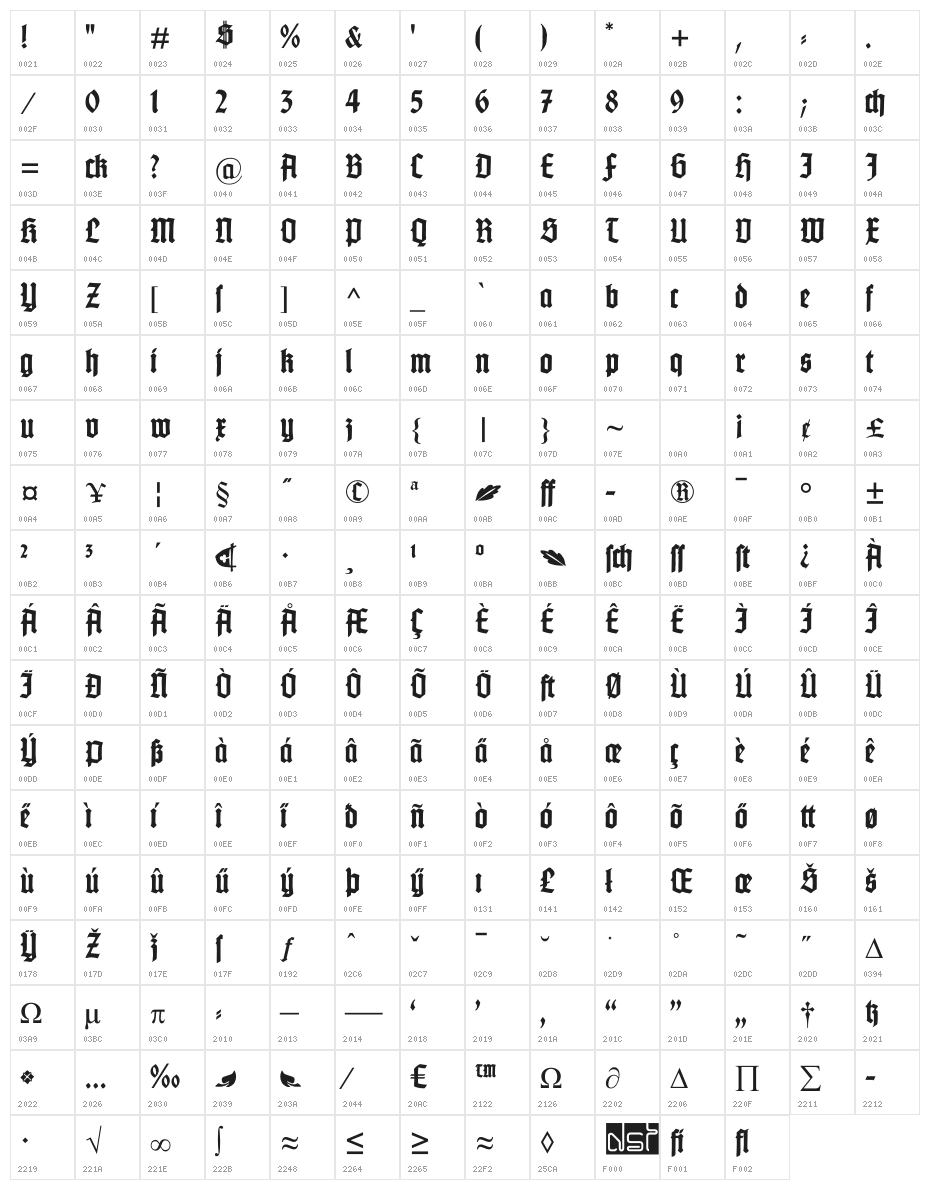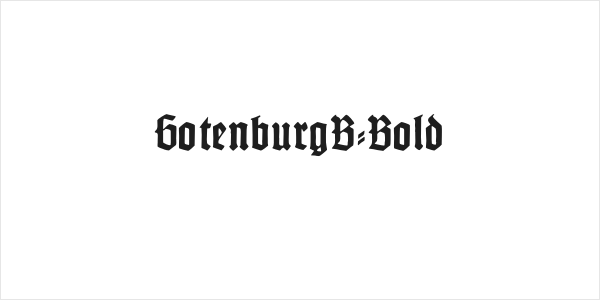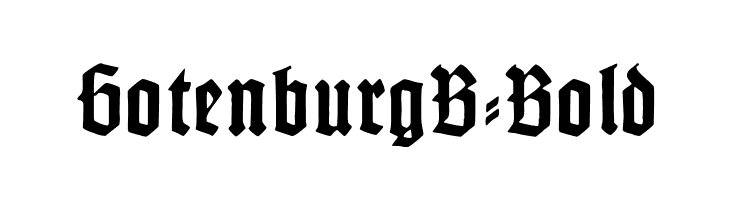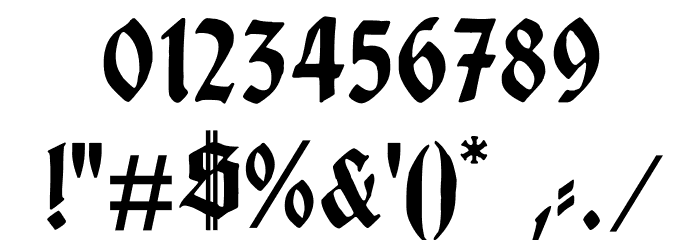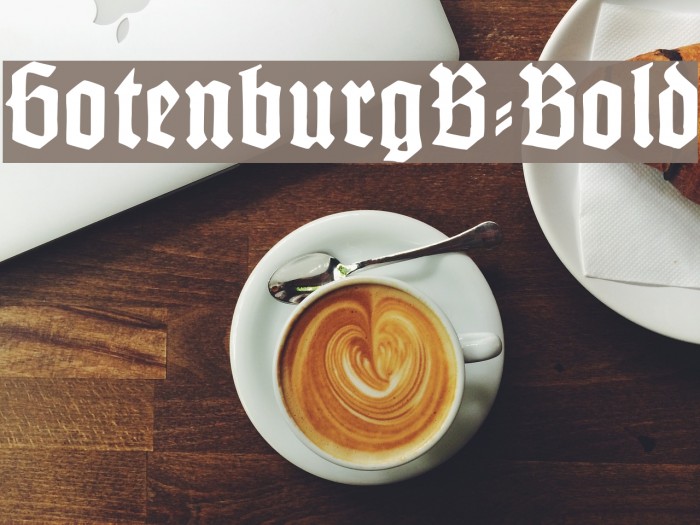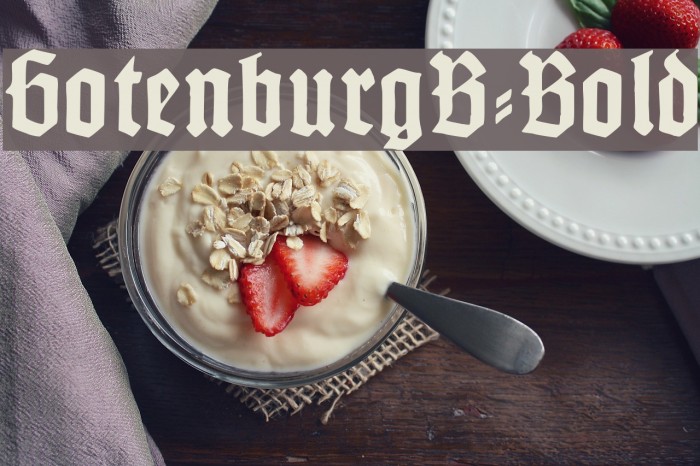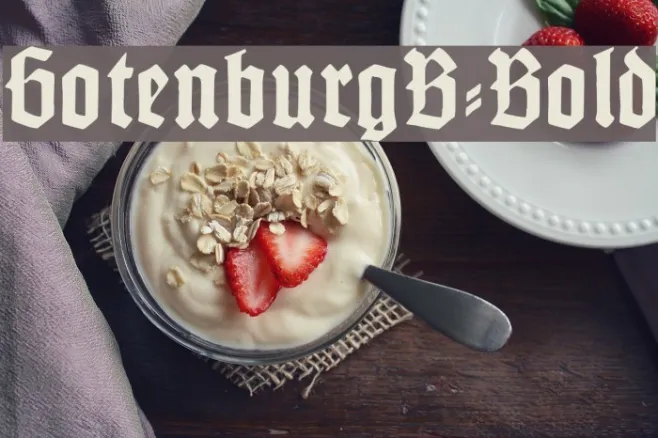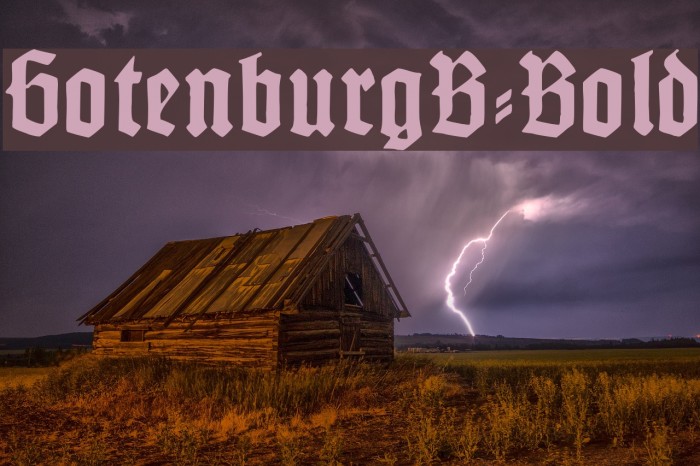
GotenburgB-Bold Font
GotenburgB-Bold Description
This font features a bold and striking blackletter style, characterized by its sharp, angular lines and dramatic flourishes. The uppercase letters are tall and imposing, while the lowercase letters maintain a consistent height, creating a cohesive and uniform appearance. The numerals and special characters are designed to match the boldness of the letters, ensuring a seamless integration across different uses. This font is reminiscent of traditional Gothic script, often associated with historical and formal contexts, yet it maintains a modern edge that makes it versatile for contemporary design projects.
| Proposed Projects | Ideal for use in branding, logos, posters, and any design project that requires a touch of historical elegance or a dramatic flair. |